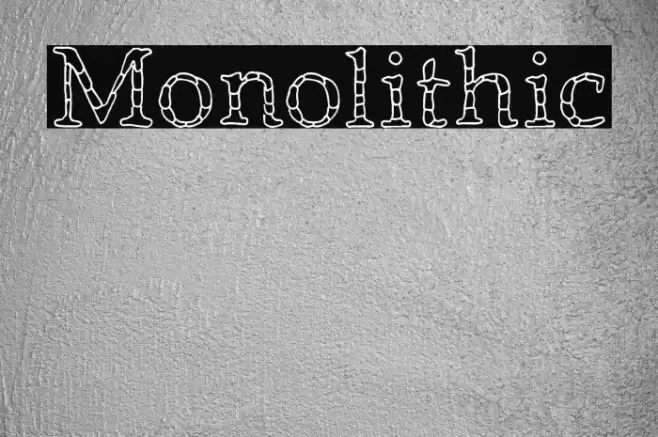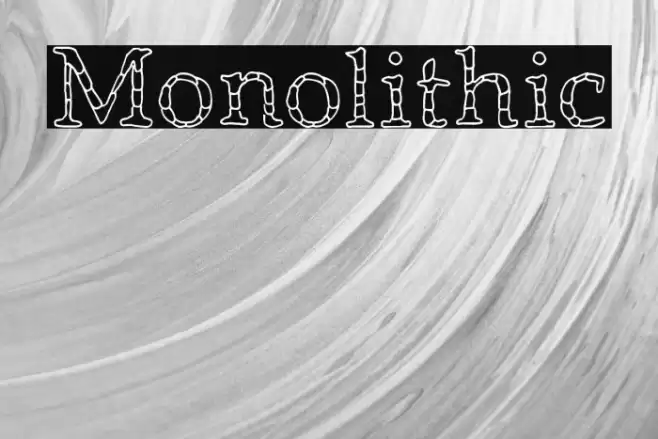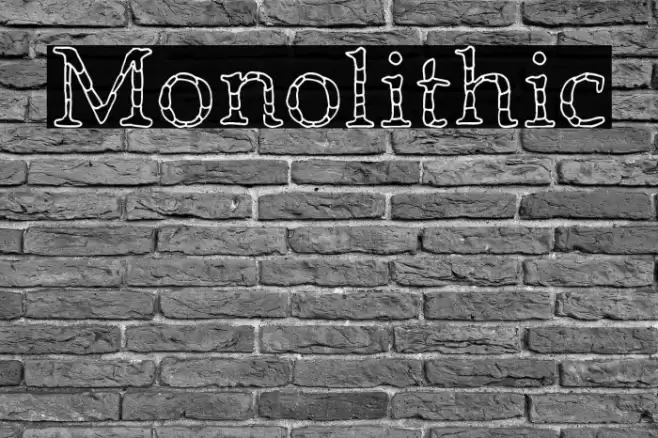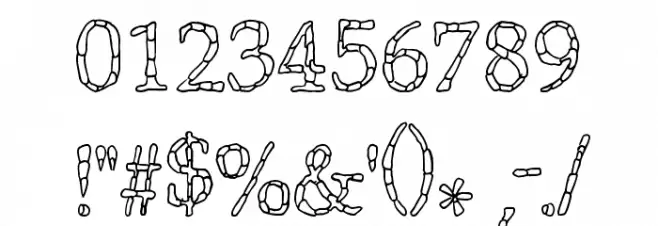
Monolithic Font
Monolithic Description
This font features a unique, decorative style that resembles a mosaic or cobblestone pattern. Each character is outlined with a bold, irregular line, giving it a textured and handcrafted appearance. The uppercase and lowercase letters maintain a consistent design, with the uppercase being slightly larger and more pronounced. The numerals and special characters follow the same aesthetic, ensuring a cohesive look across all glyphs. The font's intricate design makes it stand out, ideal for projects that require a distinctive and artistic touch. Despite its decorative nature, the characters remain legible, making it suitable for various creative applications.
A decorative font with a mosaic-like, handcrafted appearance from Decorative fonts.
- Proposed Projects: Ideal for artistic projects, posters, branding, and any design requiring a unique, textured font.
- Use Case: Headlines, Logos, Artistic projects